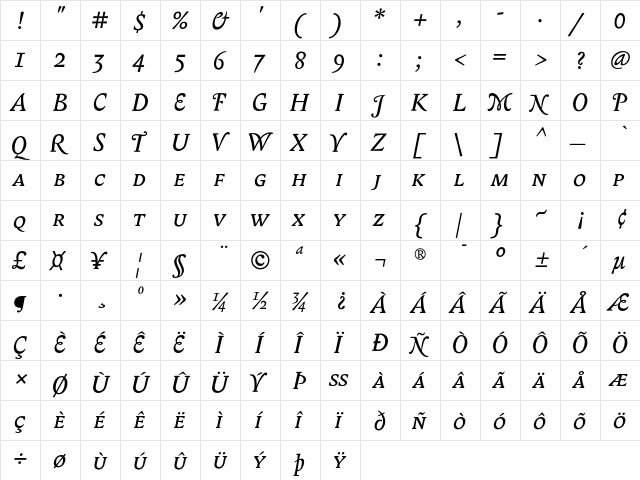
Biblon SC OT Italic
Design Context for Biblon SC OT Typeface
Biblon SC OT is a composed and adaptable typeface that performs quietly and consistently across a wide range of design contexts. The slanted form adds forward momentum and visual energy.
Pro Tip: Use Biblon SC OT for emphasis, pull quotes, and subheadings where its slanted energy can add rhythm to the layout.